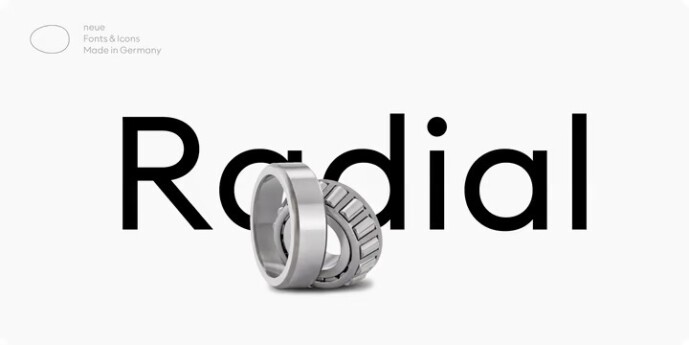
Neue Radial Font Family
Neue Radial Sans Serif Font
This is an elegant, minimal geometric and sophisticated sans serif font family from designer Neue. neue Radial is not what it seems at first sight. Most certainly it is not another geometric grotesque, but an impeccable visual system that unites four of the most popular sans serif genres of recent decades, integrated in this superfamily under the suffixes A, B, C and D.
The capital letters in all four families, almost square in appearance, follow an ancient model first demonstrated in the Roman capitalis. With only little metamorphosis from one family to the next, the capitals constitute the backbone of neue Radial, although a common denominator also lies in the overall structure of several prominent lowercase characters such as a, b, d, h, i, n, u. At the same time, details in stroke endings, strokes that enclose counter forms and transitions from bows into stems are carefully adjusted in detail to match the respective genre. The system successfully merges the three traditional stroke endings, i.e. vertical, diagonal, horizontal, and joins organic with mechanical stem structures. As a result, each family member speaks its own dialect, while all four stylistically share the same language. In other words, the range of weights, number of glyphs and font metrics are identical in all four families that each offer their own style and expression.